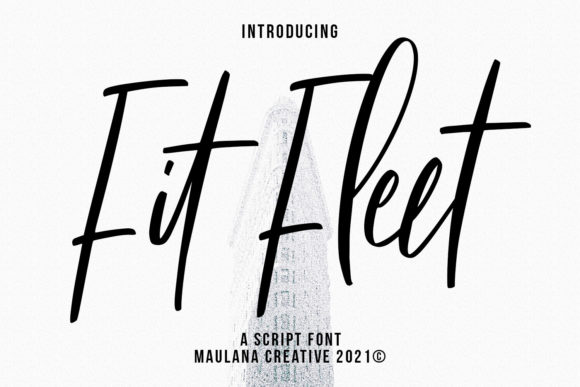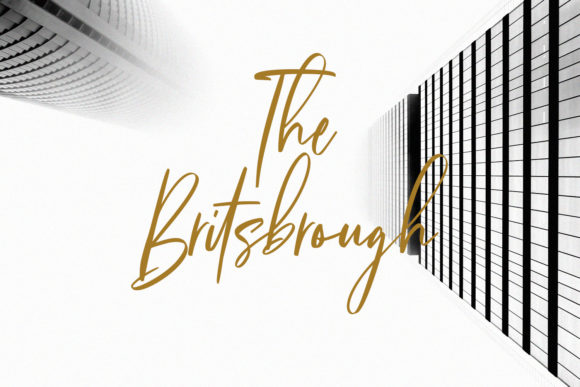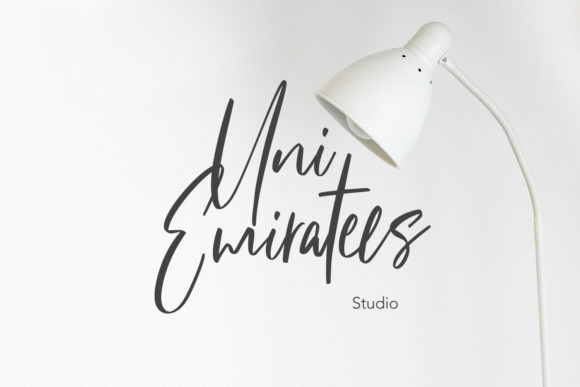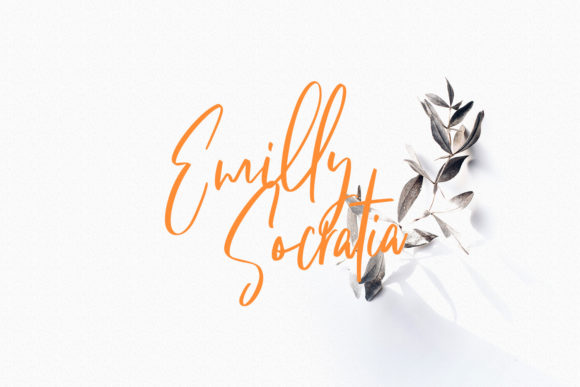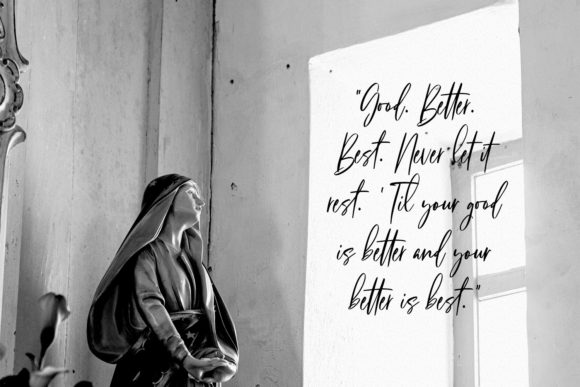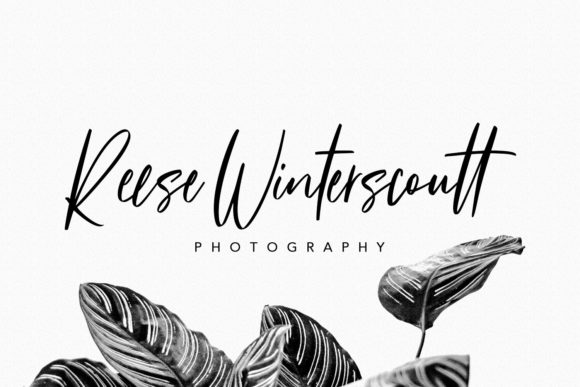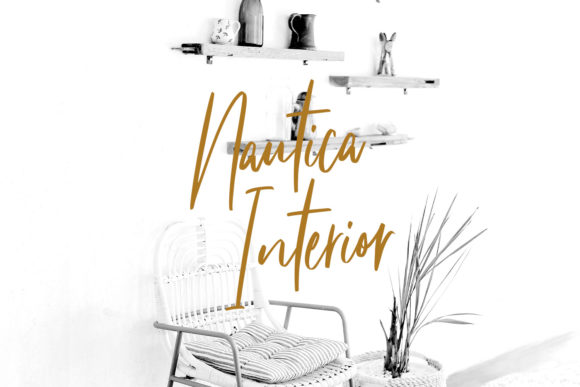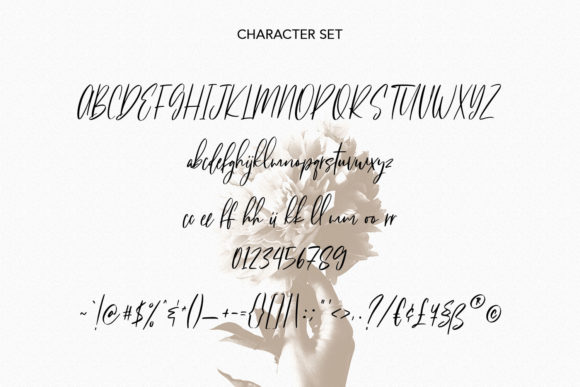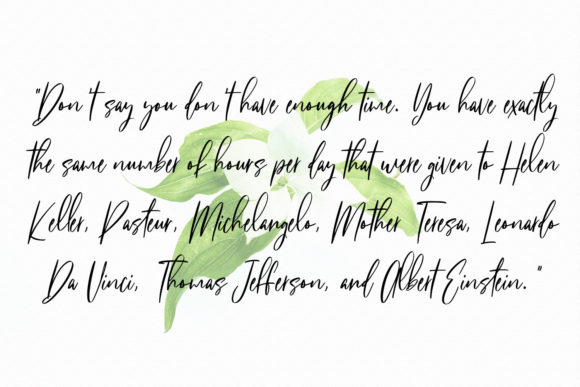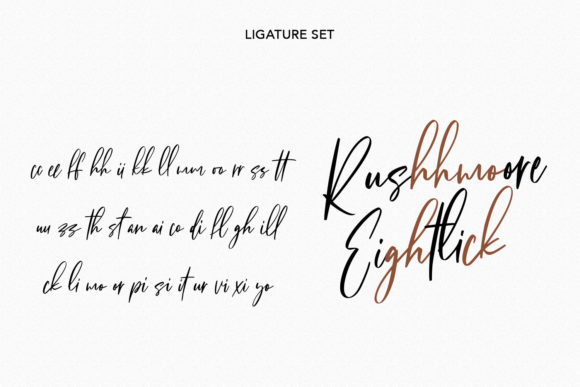
About Fit Fleet Script Font
Fit Fleet Script is a relaxed, fashionable and flowing script font. This font was particularly crafted for those who need a beautiful and refreshing look to their designs.